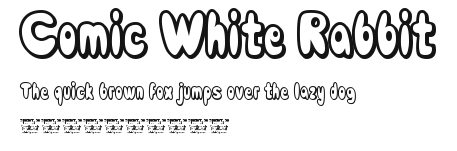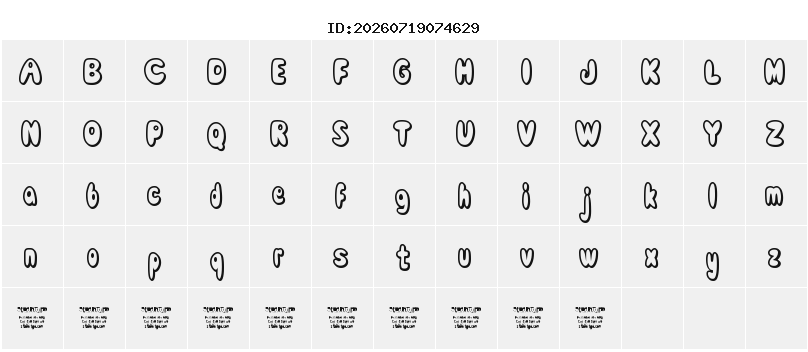
Comic White Rabbit Preview
• Font Name: Comic White Rabbit
• Full Font Name: Comic White Rabbit
• Designer: MEHMET ABACI
About Comic White Rabbit.otf
Comic White Rabbit.otf is a modern, elegant sans-serif font designed for ultimate readability and visual harmony. Perfect for branding, headlines, web design, and print materials.